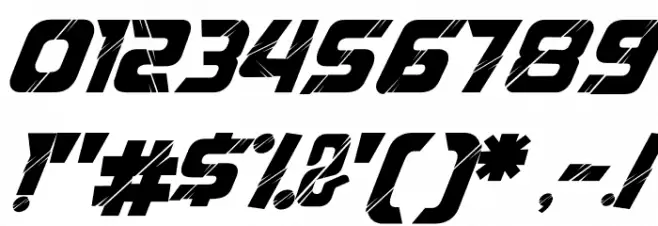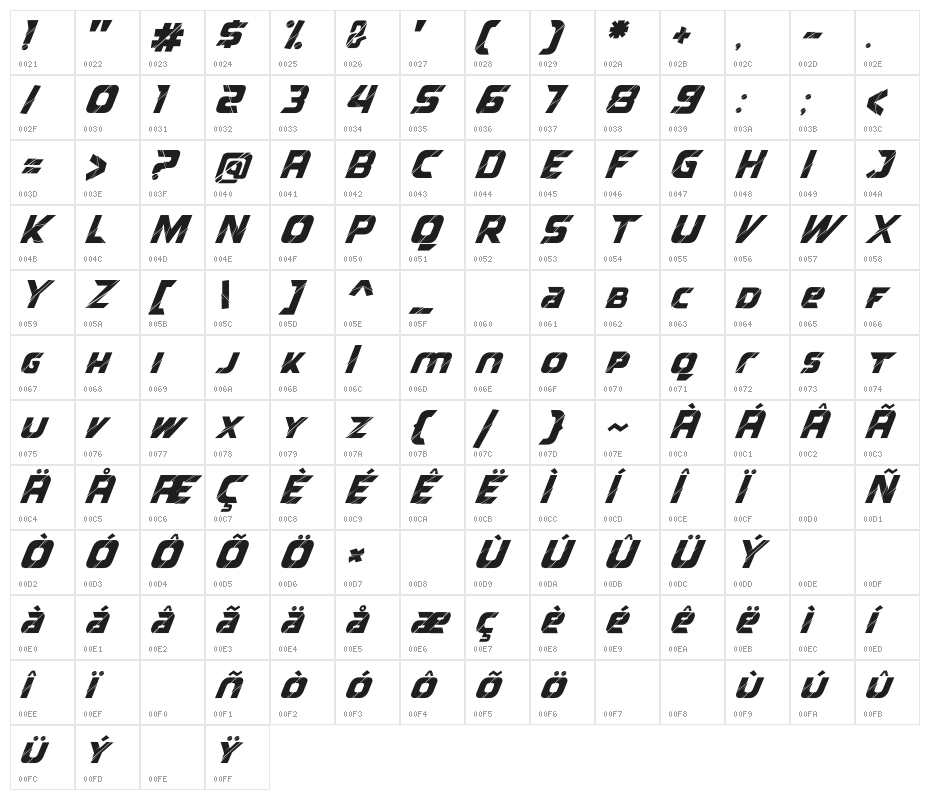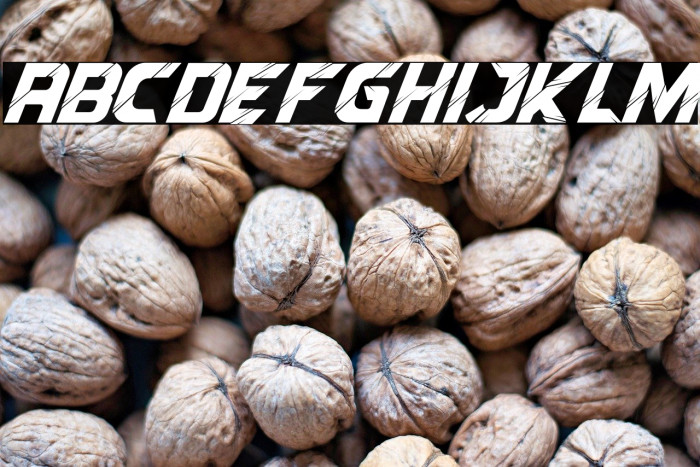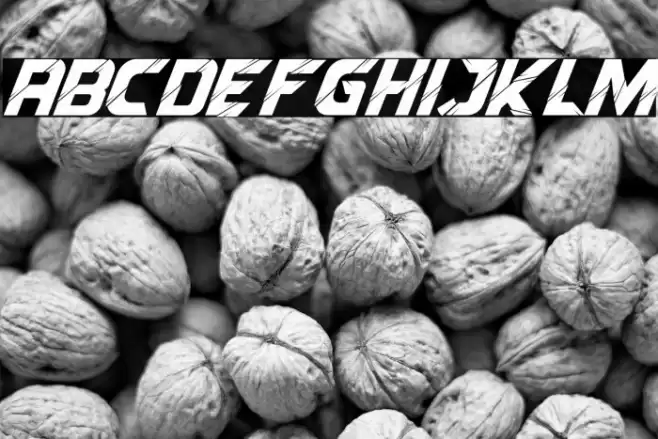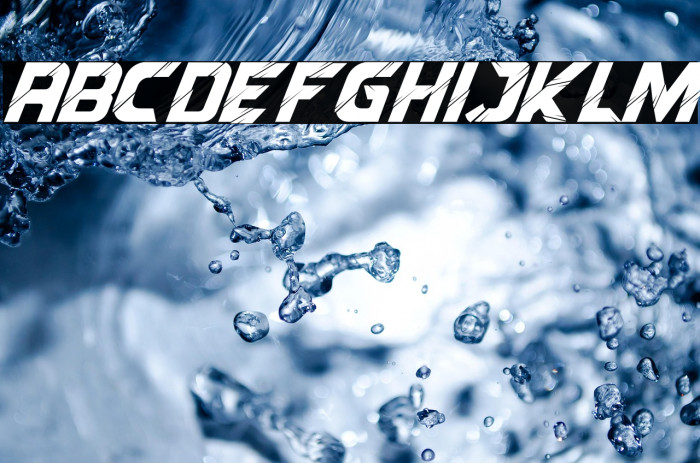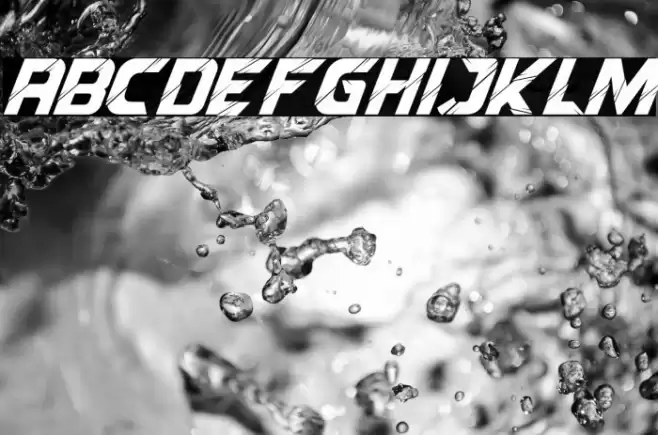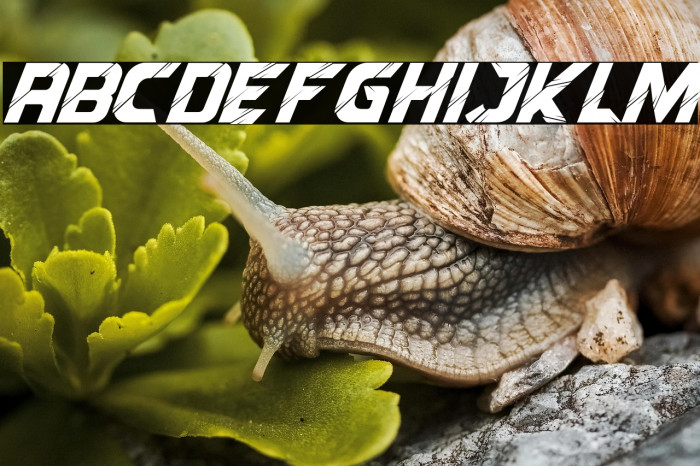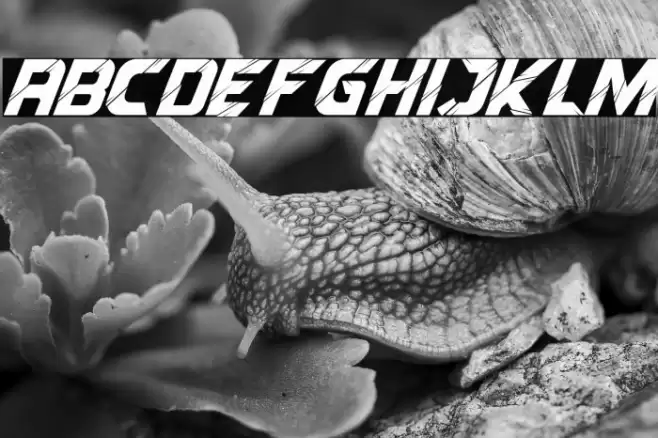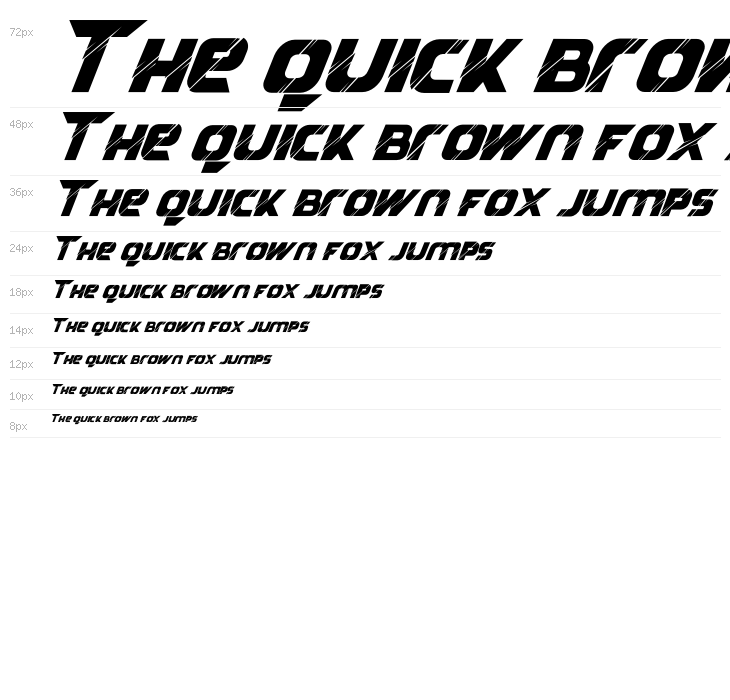
Reflected Italic Font
Reflected Italic Description
This font features a bold and dynamic style with a strong italic slant, giving it a sense of motion and energy. The characters are designed with sharp, angular edges and a reflective effect that adds a futuristic and edgy feel. The strokes are thick and consistent, providing a robust and impactful appearance. The font's unique design elements make it stand out, with a high level of contrast between the thick strokes and the negative space within the characters. This creates a striking visual effect that is both modern and eye-catching.
| Proposed Projects | Ideal for branding, sports team logos, video game titles, and dynamic posters. |